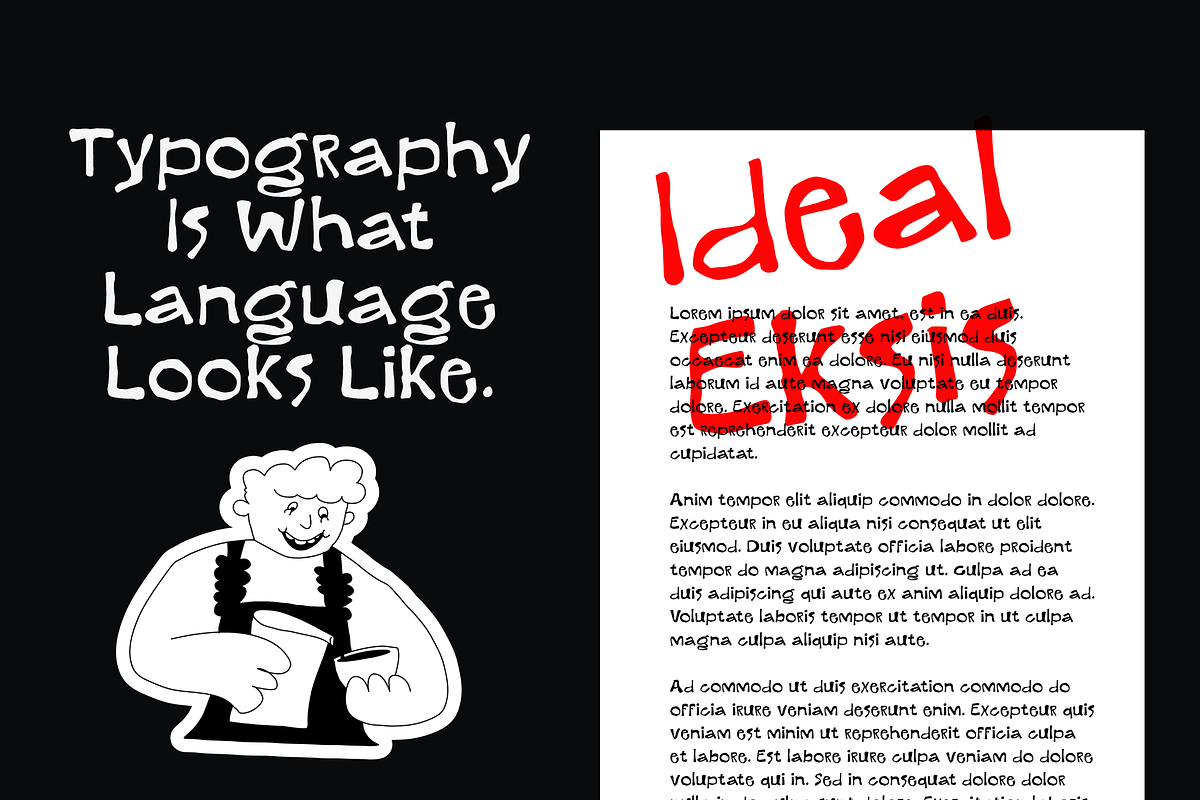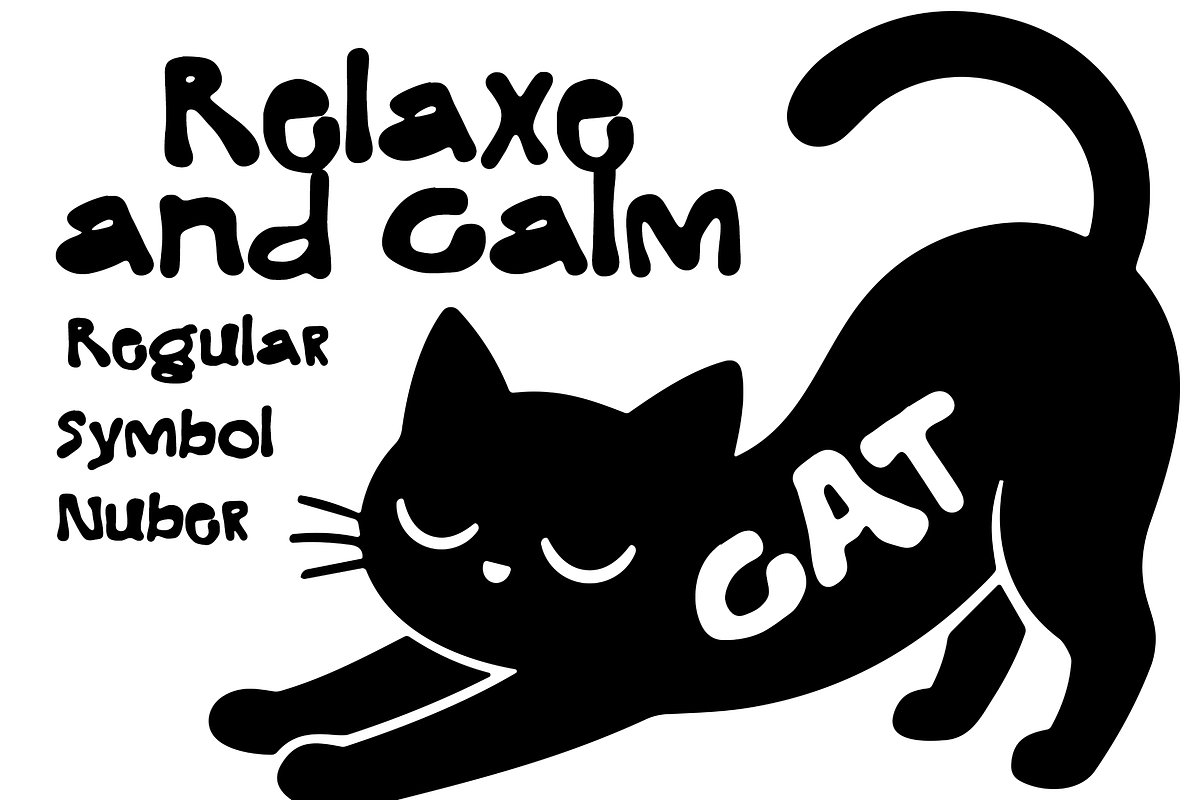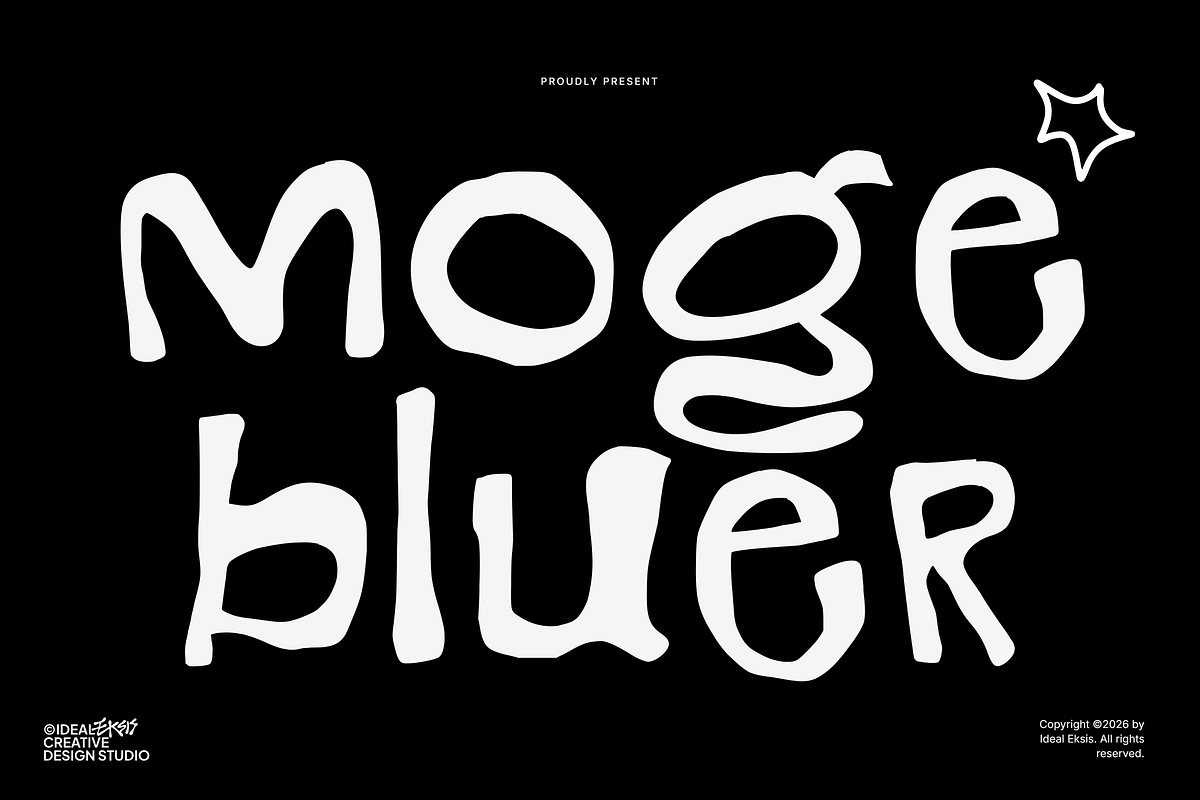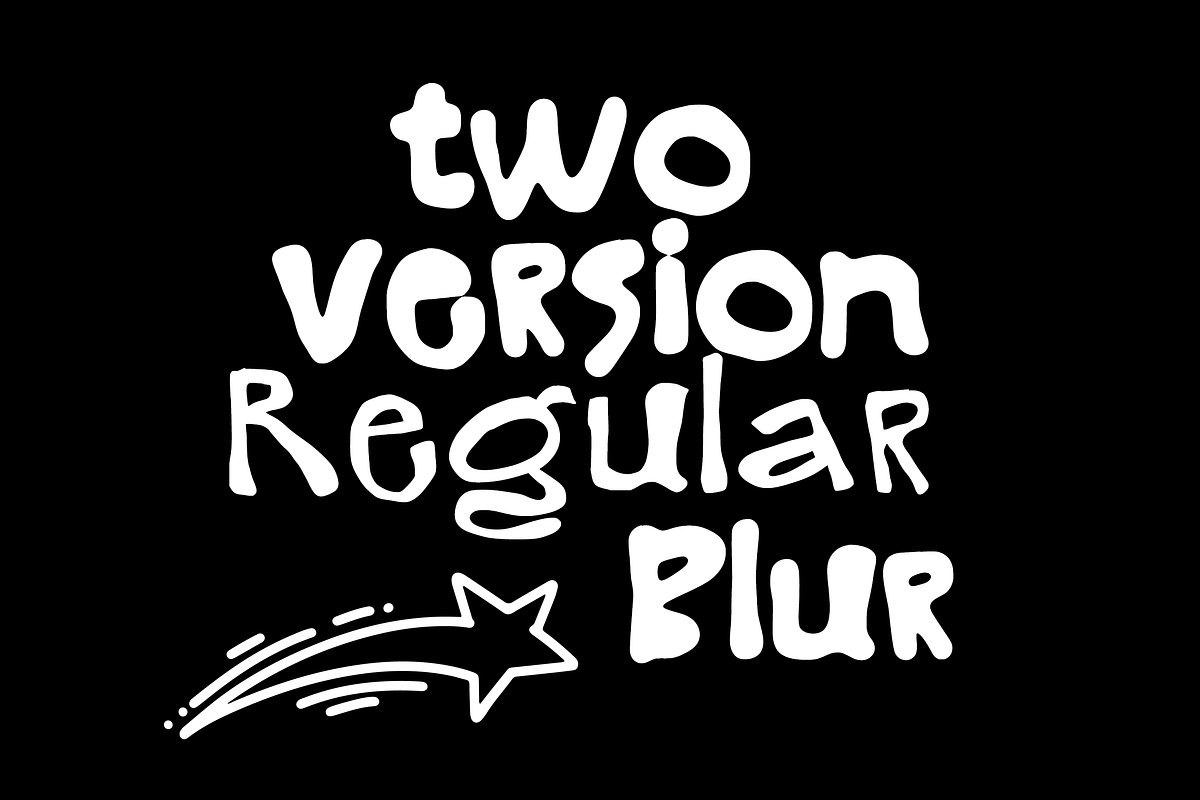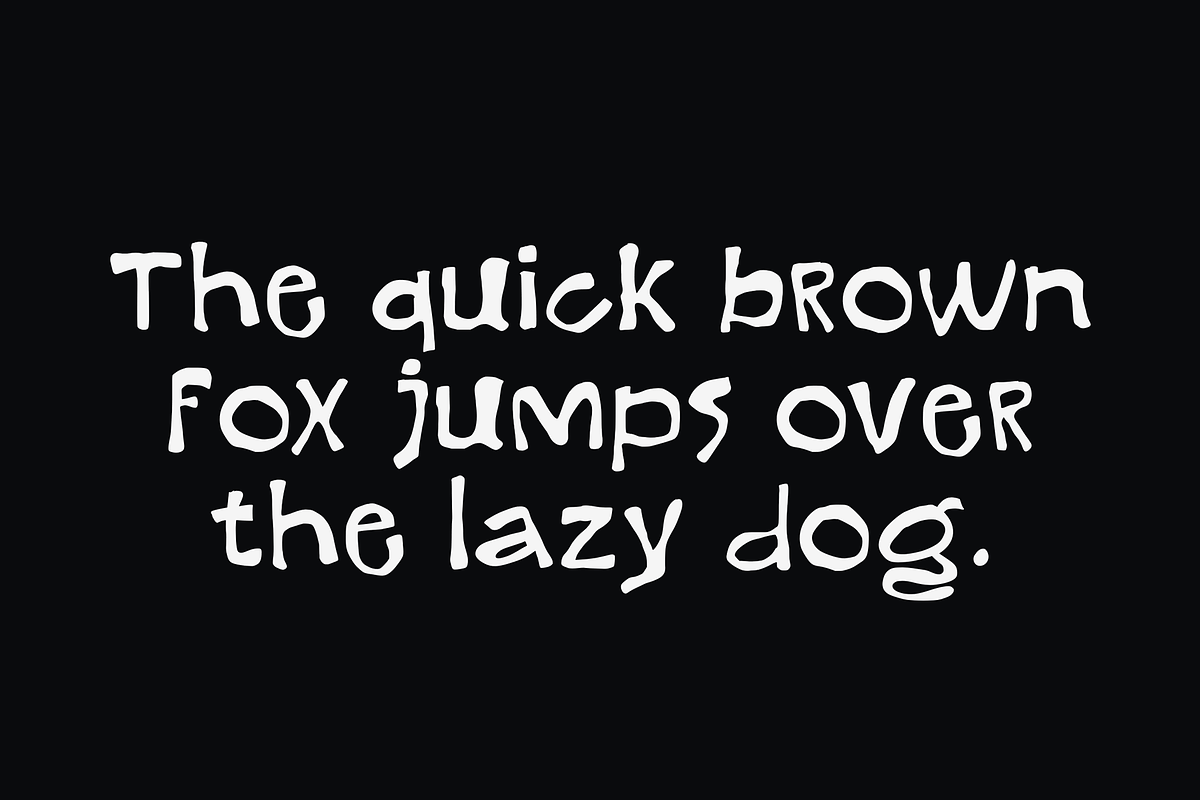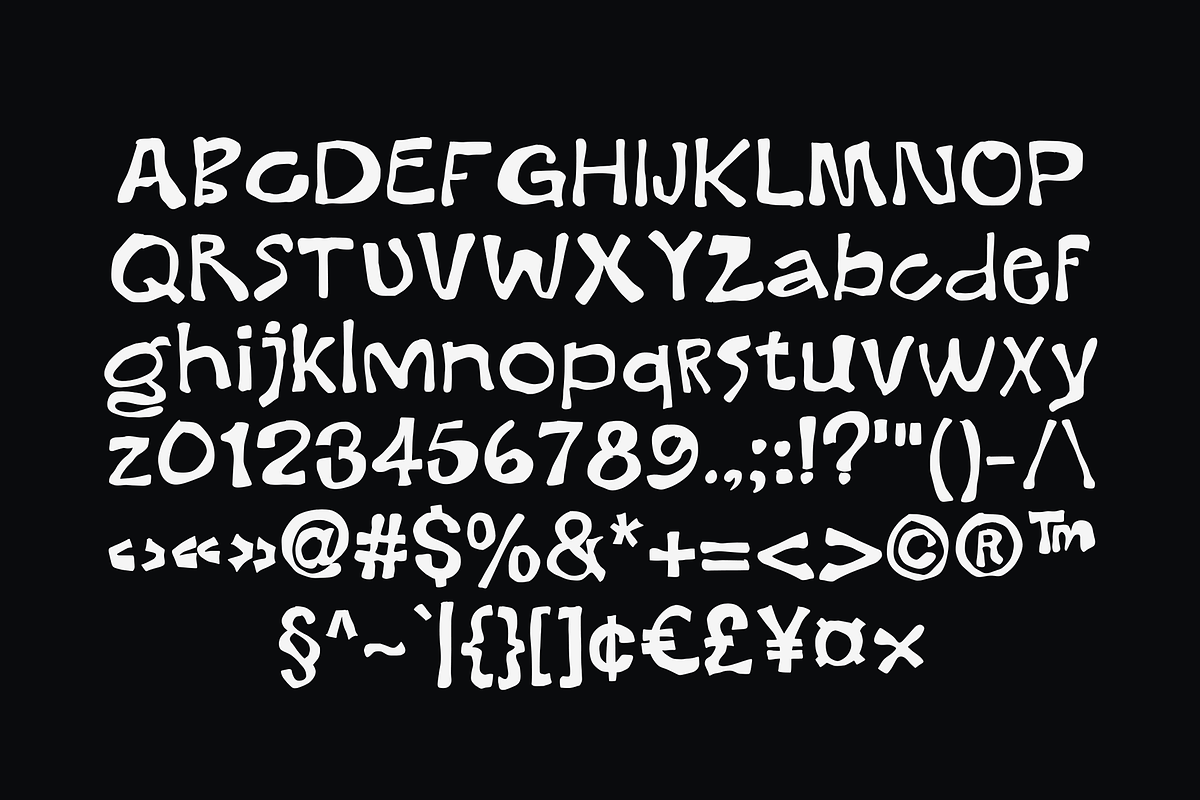
Moge Bluer
This font features highly expressive, hand-drawn letterforms with a playful and whimsical character. The strokes are organic and irregular, showcasing wobbly lines and varying weights that give it a raw, crafted aesthetic. With its bold presence and unconventional curves, the typeface exudes a carefree, artistic energy. It is ideal for creative branding, poster designs, packaging, and editorial layouts that require a touch of hand-made charm and youthful rebellion.